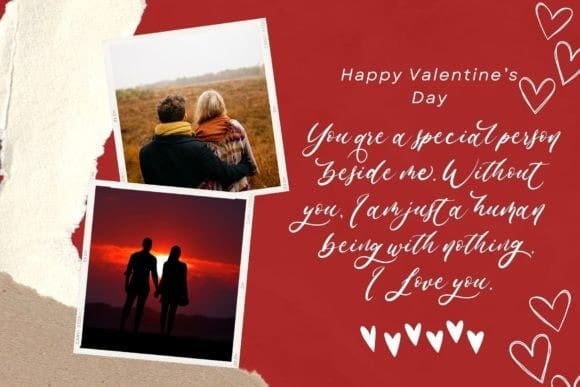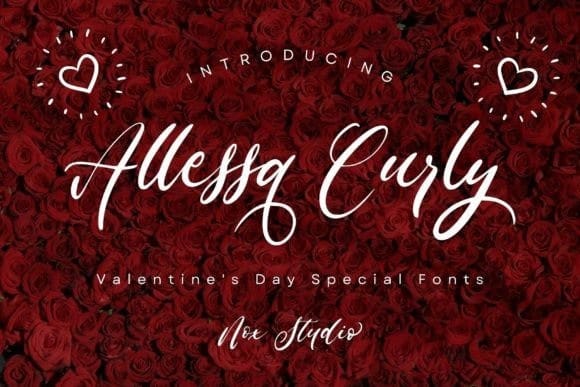
Allessa Curly Font
Allessa Curly Font, a radiant and enduring handwritten typeface. Its charming calligraphy dances across the page, making it a delightful addition to your Valentine’s season creations. Ideal for crafting logos, building attractive brands, or stamping your mark with poignant quotes, Allessa Curly communicates romance and warmth in every stroke. With its PUA encoding, ease of access to all glyphs and swashes is guaranteed, allowing your creativity to flourish effortlessly.